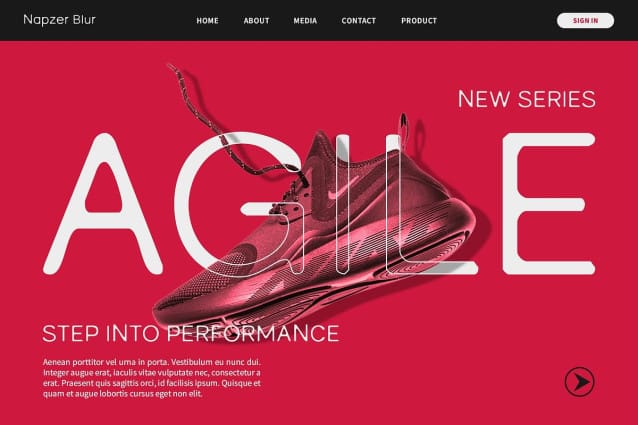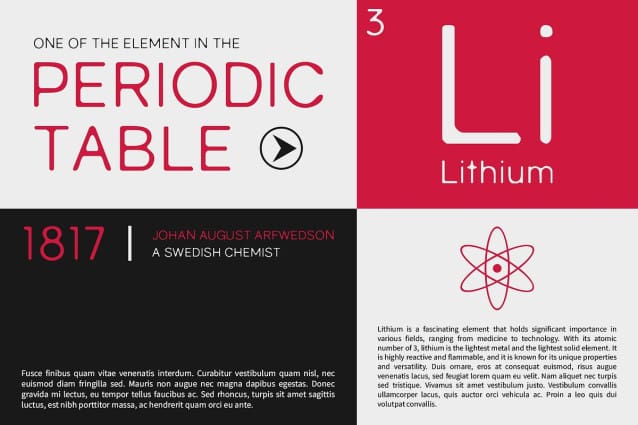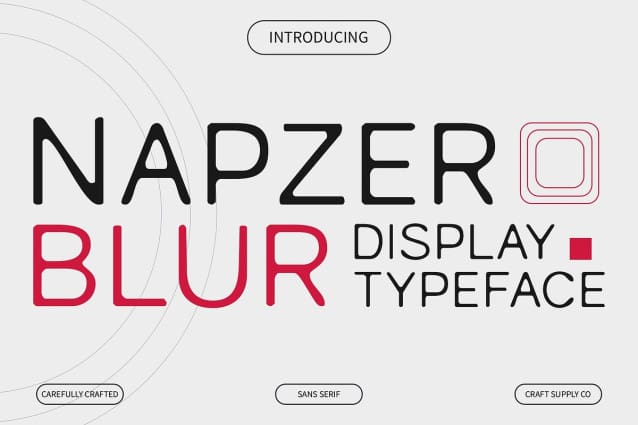
Napzer Blur Font
Napzer Blur Font is a modern sans-serif font with a blur style, typically suitable for various designs that aim for a soft, smooth, and attention-grabbing appearance. Its blurred effect adds a unique and dynamic element, making it ideal for product designs, posters, flyers, and even logos.
With its versatile design, Napzer Blur Font is suitable for a variety of uses, including branding, editorial design, and promotional materials. Its soft and smooth appearance adds a touch of elegance and sophistication, ensuring that your designs are visually appealing.
Napzer Blur Font prioritizes visual impact, ensuring that your designs stand out and capture attention. Whether used in print or digital media, this font adds a soft and inviting element that draws viewers in.
Whether you’re designing a product label, a promotional poster, or a stylish logo, Napzer Blur Font is the perfect choice for projects that require a soft, smooth, and attention-grabbing appearance. Its modern style ensures that your designs will always look contemporary and engaging.